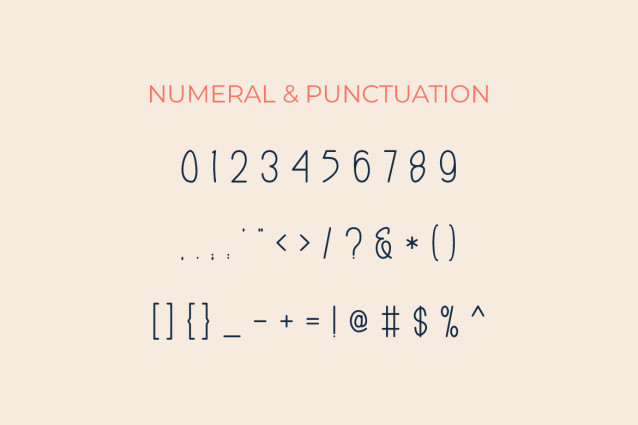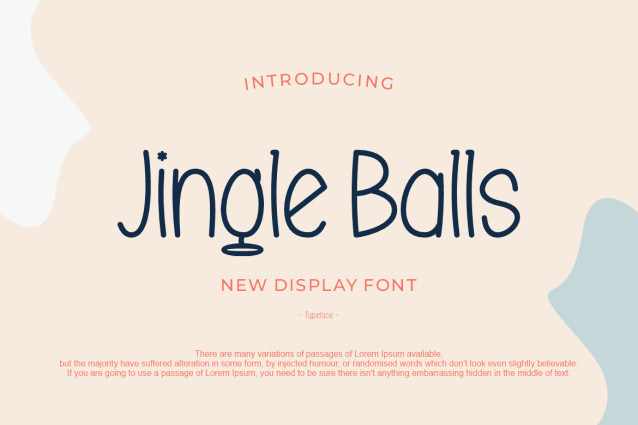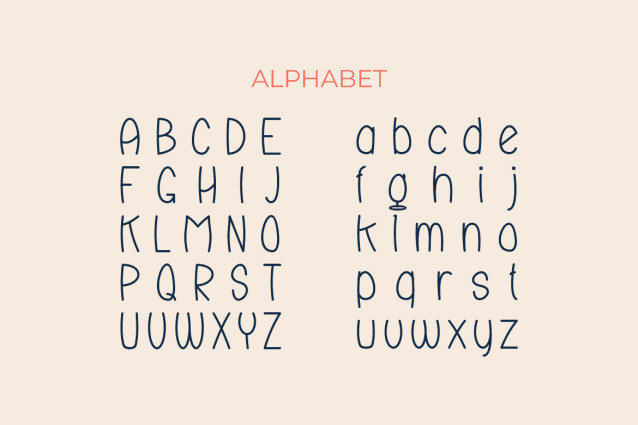
Jingle Balls Font
Jingle Balls Font is a sweet and quirky handwritten font. Its natural and unique style makes it incredibly fitting to a large pool of designs. The only limit is your imagination!